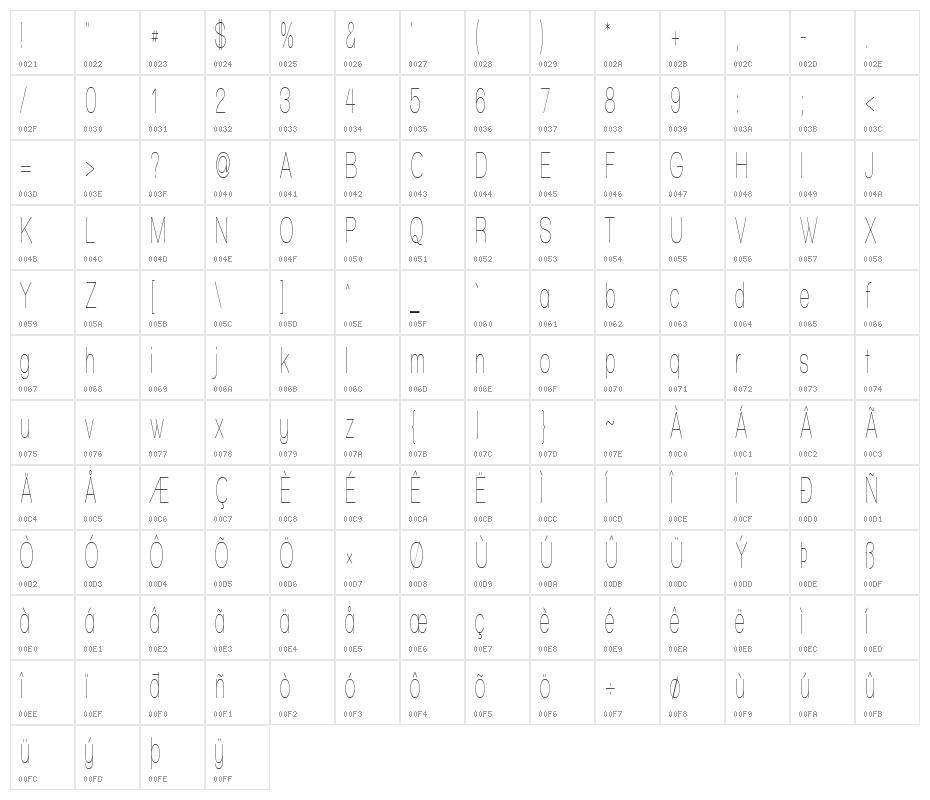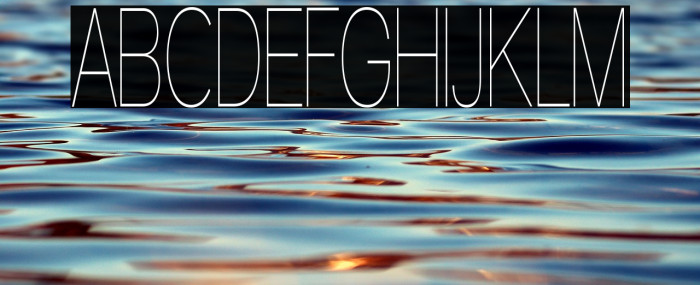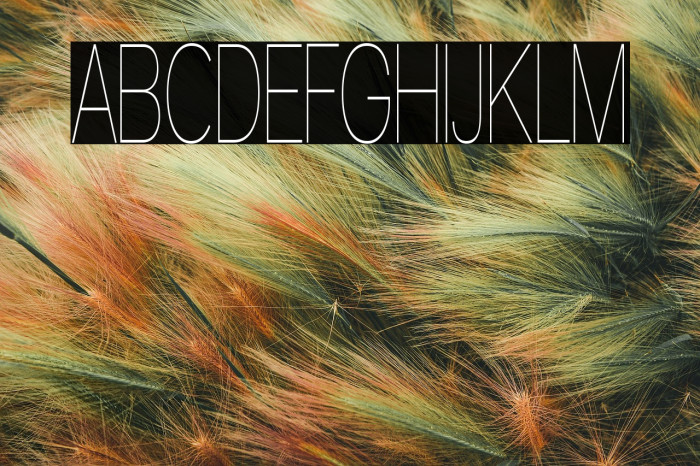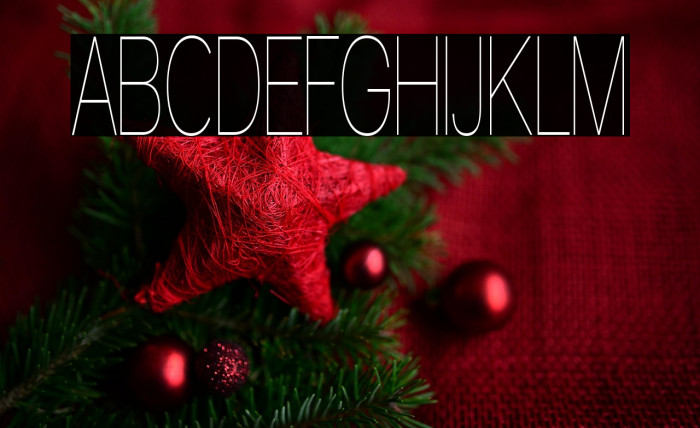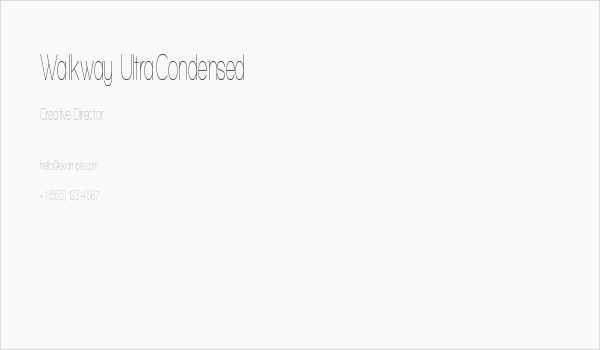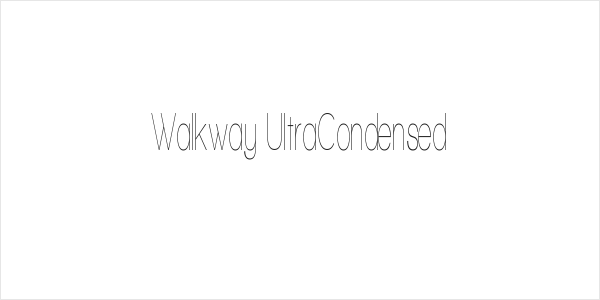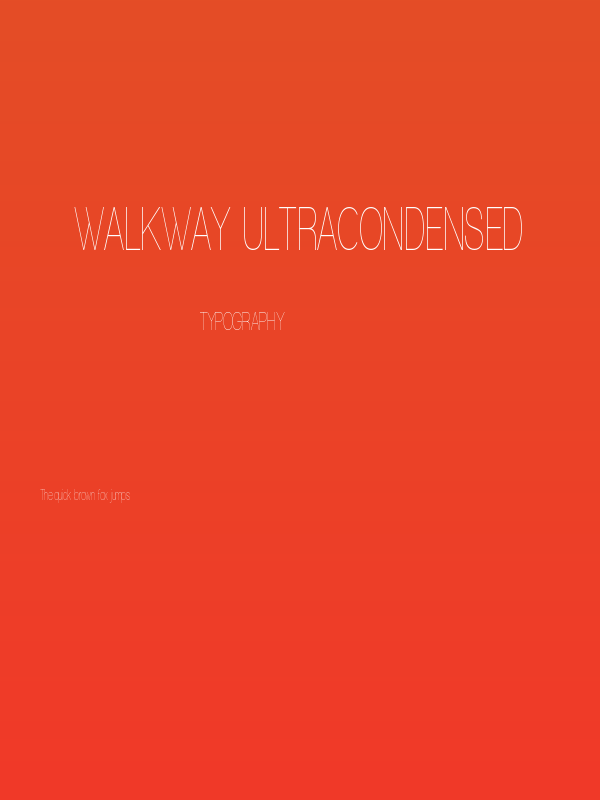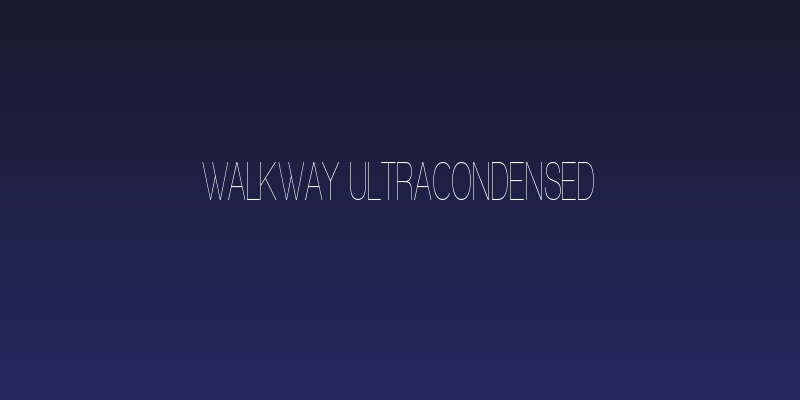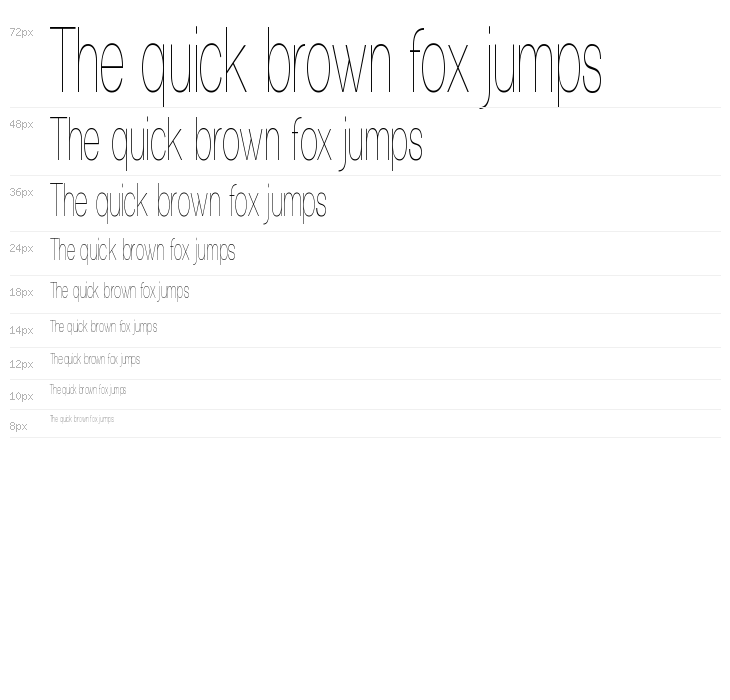
Walkway UltraCondensed Font
Walkway UltraCondensed Description
This font exhibits a sleek and ultra-condensed style, characterized by its thin and elongated letterforms. The design emphasizes verticality, with minimal stroke width, creating a modern and airy appearance. The uppercase and lowercase letters maintain consistent proportions, enhancing readability despite the narrow spacing. The numerals and special characters follow the same design principles, ensuring uniformity across all glyphs. This font's minimalist aesthetic makes it suitable for contemporary design projects where space is limited, yet clarity is essential.
| Use Case | Headlines, Logos, Digital Interfaces |
| Proposed Projects | Ideal for modern branding, minimalist posters, editorial layouts, and digital interfaces where space is a premium. |